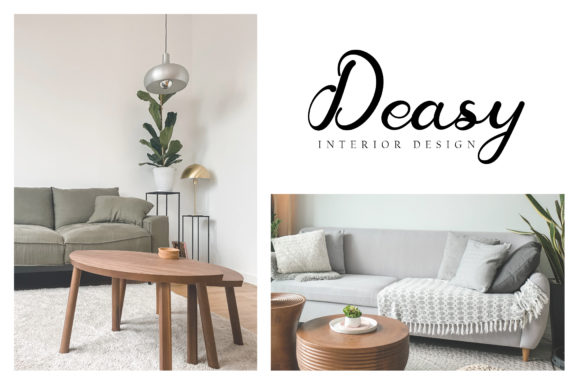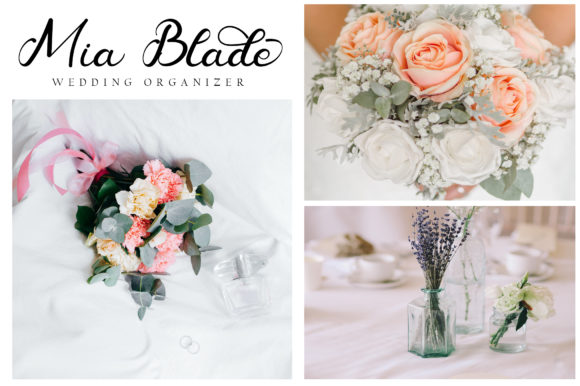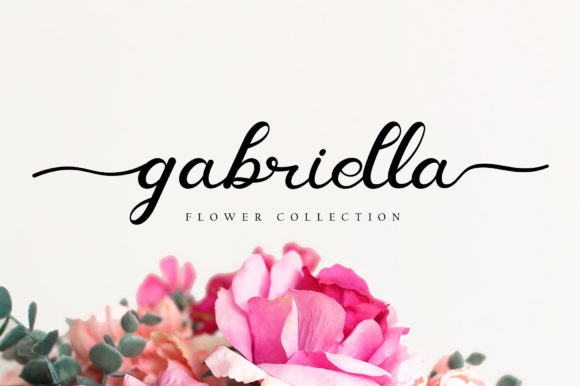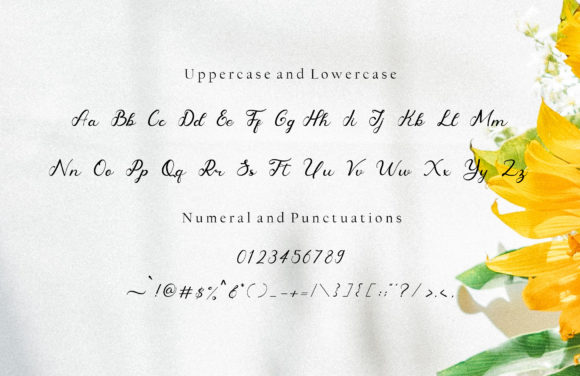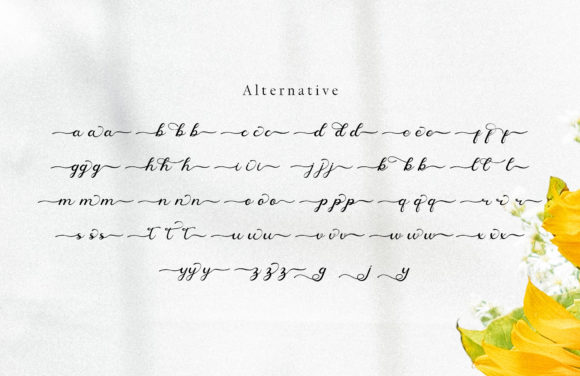
Dandelyon Font: A Sweet and Cursive Handwritten Font for Your Design Needs
Are you a designer or crafter looking for a font that can add a touch of sweetness and elegance to your designs? Look no further than the Dandelyon font. This beautiful, cursive handwritten font is perfect for a variety of design ideas, from wedding invitations and party decor to branding and packaging.
What Makes Dandelyon Font So Special?
Dandelyon is a sweet and cursive handwritten font that is sure to capture the hearts of designers and crafters alike. Its gentle, flowing lines and delicate curves make it a versatile font that can be used for a wide range of design projects. Whether you’re looking to create a romantic and whimsical design or a more modern and sophisticated one, Dandelyon is the perfect choice.
PUA Encoding for Easy Access to Glyphs and Ligatures
One of the best things about Dandelyon font is that it is PUA (Private Use Area) encoded. This means that you can access all of the amazing glyphs and ligatures with ease, making it simple to create beautiful and unique designs. With PUA encoding, you can easily insert special characters, such as flourishes and swashes, into your text to add an extra touch of elegance and sophistication.
Design Ideas to Get You Started
Dandelyon font is perfect for a wide range of design ideas, including:
- Wedding invitations and party decor: Add a touch of romance and whimsy to your wedding invitations, party decor, and other celebration materials with Dandelyon font.
- Branding and packaging: Use Dandelyon font to create beautiful and eye-catching branding and packaging materials, such as logos, labels, and business cards.
- Stationery and cards: Create gorgeous stationery and cards with Dandelyon font, perfect for special occasions or everyday correspondence.
- Digital art and graphics: Use Dandelyon font to add a touch of elegance and sophistication to your digital art and graphics, such as social media graphics, blog posts, and more.
Tips for Using Dandelyon Font
Here are a few tips for using Dandelyon font in your designs:
- Experiment with different sizes and colors: Dandelyon font looks beautiful in a variety of sizes and colors, so don’t be afraid to experiment and find the perfect combination for your design.
- Mix and match with other fonts: Dandelyon font pairs beautifully with other fonts, so try mixing and matching it with different fonts to create a unique and interesting design.
- Use it for headings and titles: Dandelyon font is perfect for headings and titles, where its elegant and cursive lines can really shine.
In conclusion, Dandelyon font is a beautiful and versatile font that is perfect for designers and crafters looking to add a touch of sweetness and elegance to their designs. With its PUA encoding and range of glyphs and ligatures, Dandelyon font is easy to use and can be used for a wide range of design projects. Whether you’re creating wedding invitations, branding materials, or digital art, Dandelyon font is sure to be a great choice.